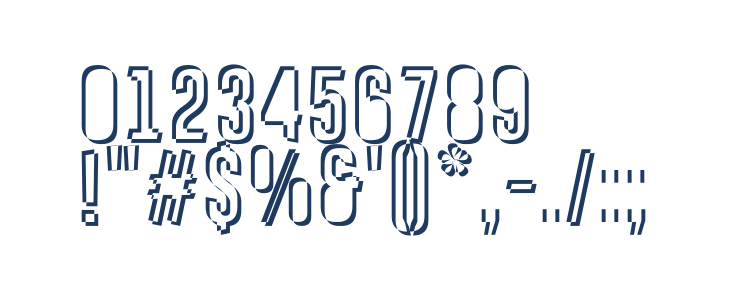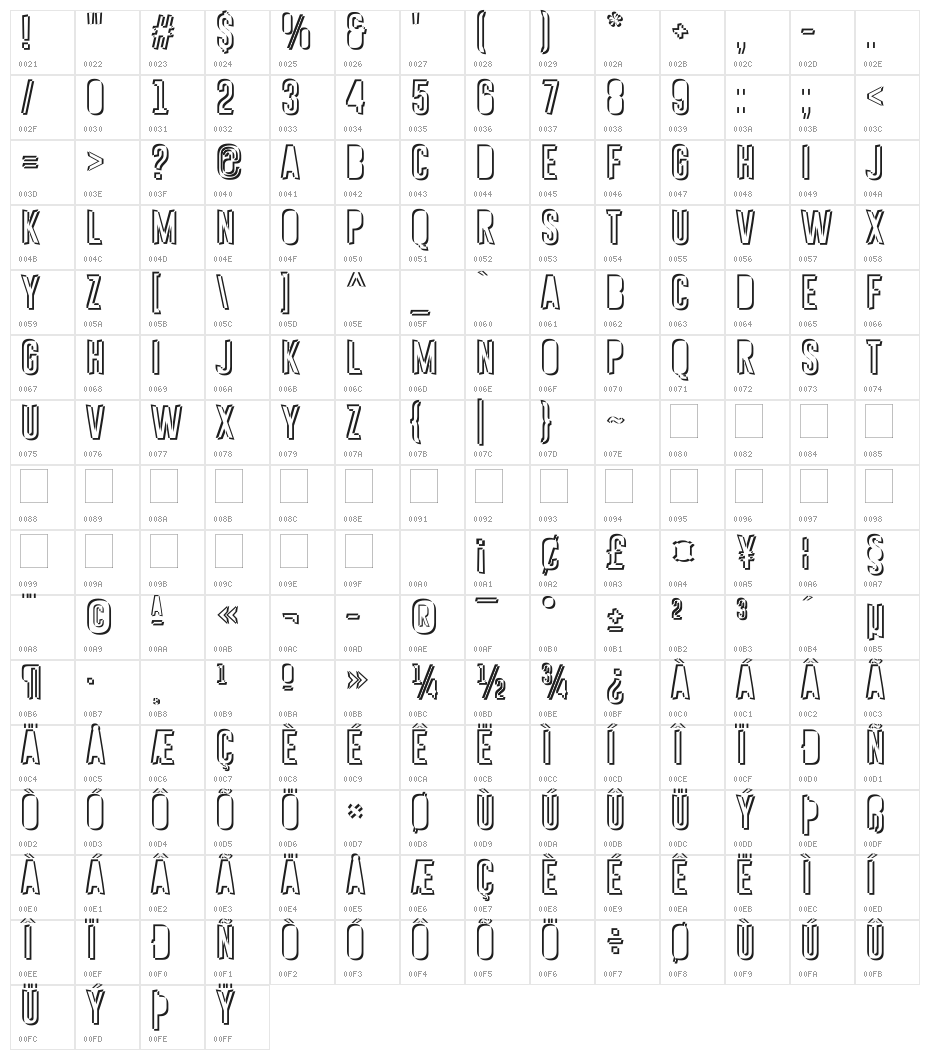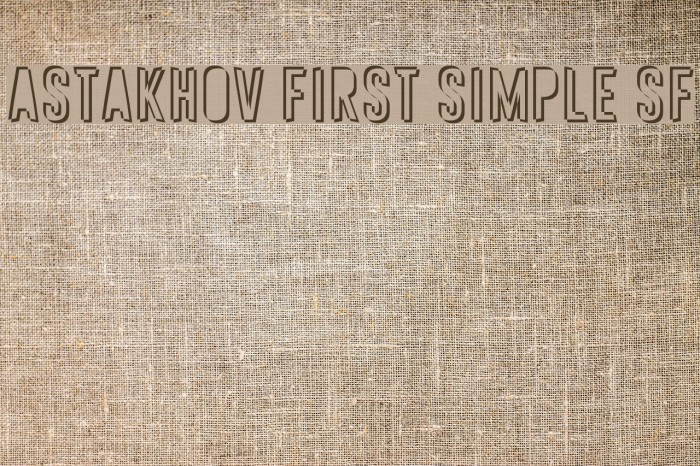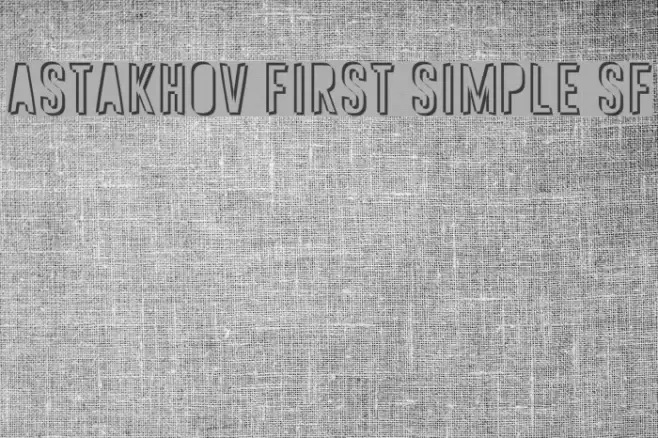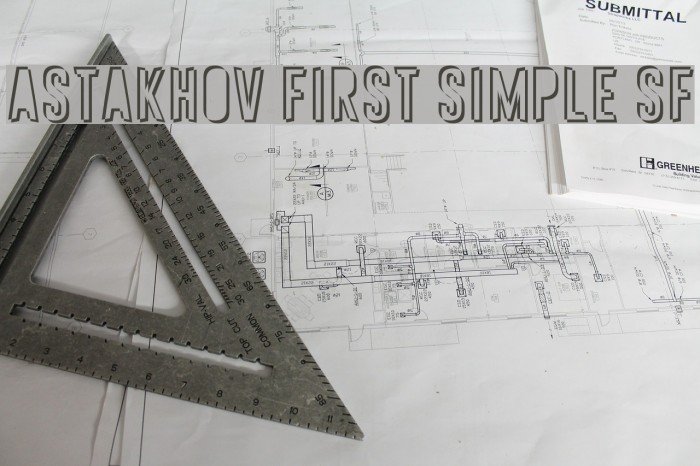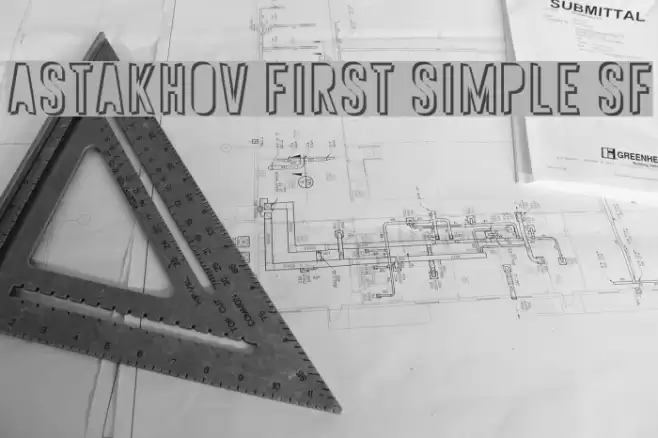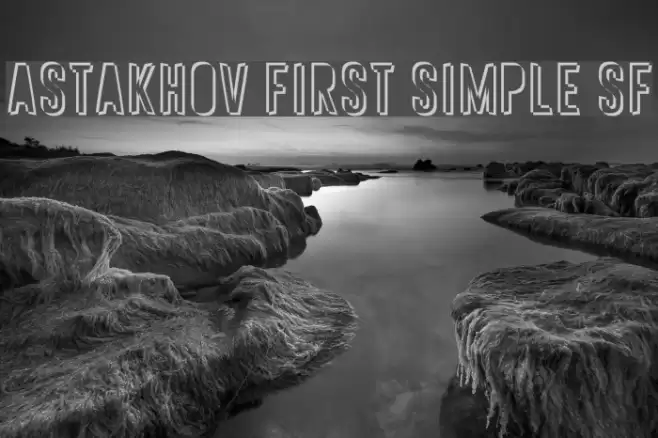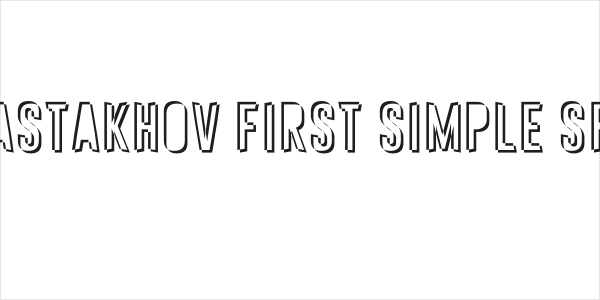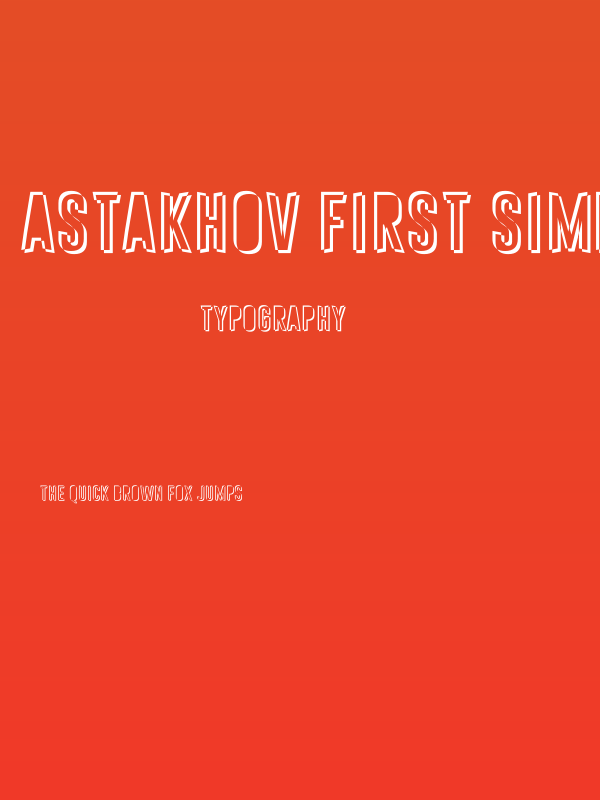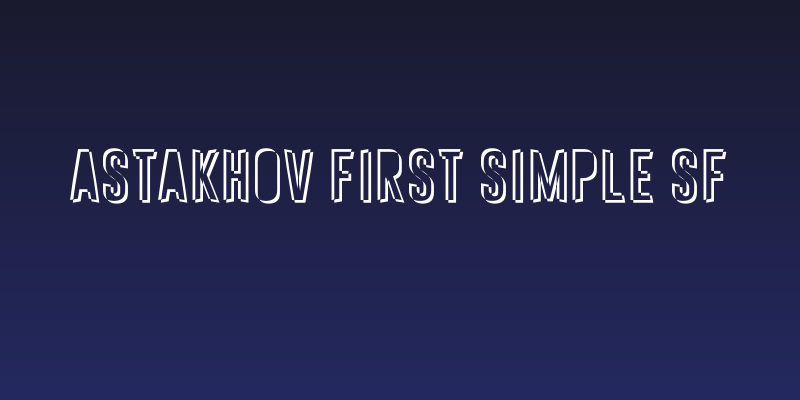
Astakhov First Simple SF Font
Astakhov First Simple SF Description
This font features a bold, decorative style with a three-dimensional effect created by the use of shadowing. The uppercase letters are designed with a strong, impactful presence, making them ideal for attention-grabbing headlines. The characters have a consistent height and width, contributing to a uniform appearance. The numbers and special characters are crafted with the same boldness and shadow effect, ensuring a cohesive look across all text elements. The font's unique style is both modern and playful, suitable for creative projects that require a standout typeface.
| Proposed Projects | Ideal for posters, logos, and branding materials that require a bold and creative touch. |